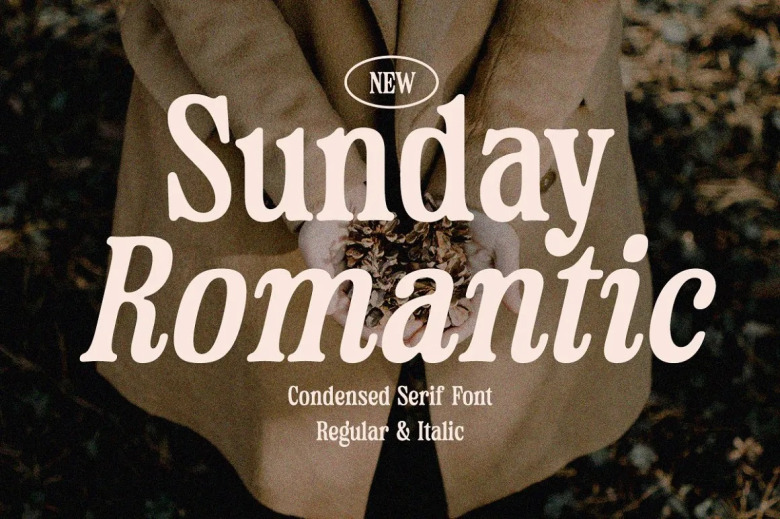
Sunday Romantic Font
Sunday Romantic is a sleek condensed serif typeface. Perfect for all types of design in formal like invitations, logo or branding, labels, logos, magazines, books etc and in various other informal forms such as social media posts, text messages. Iuhfaer Iiefegade is a casual handwritten font.
Sunday Romantic Serif Font